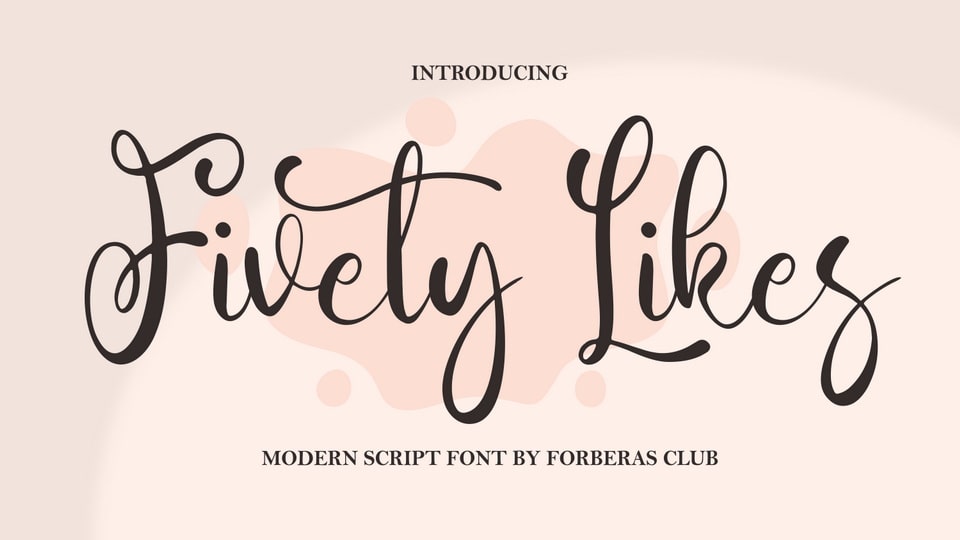
Download Fivety Likes font, a lovely script typeface inspired by modern and flowing handwriting. Fivety Likes is especially designed for luxury, elegant, feminine projects.